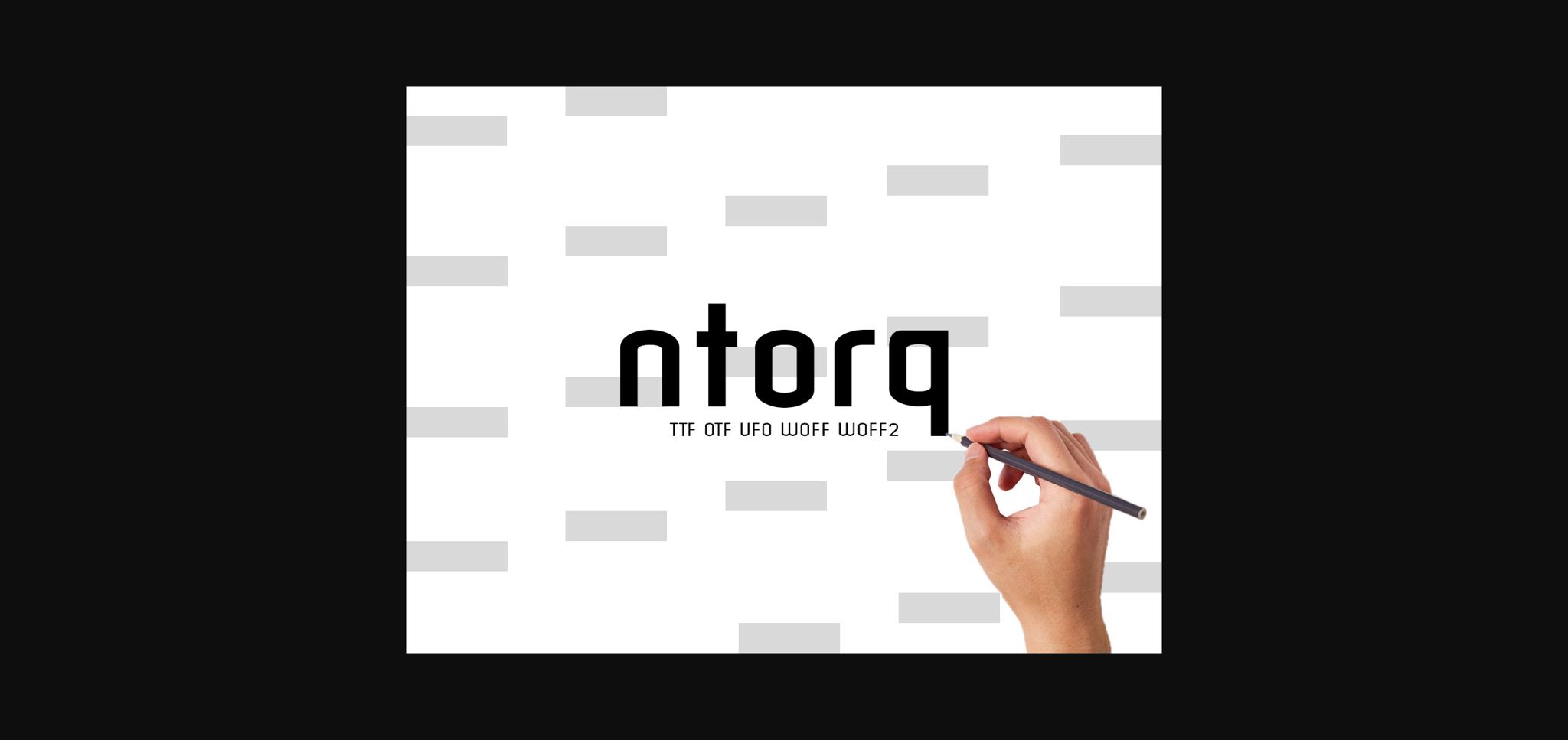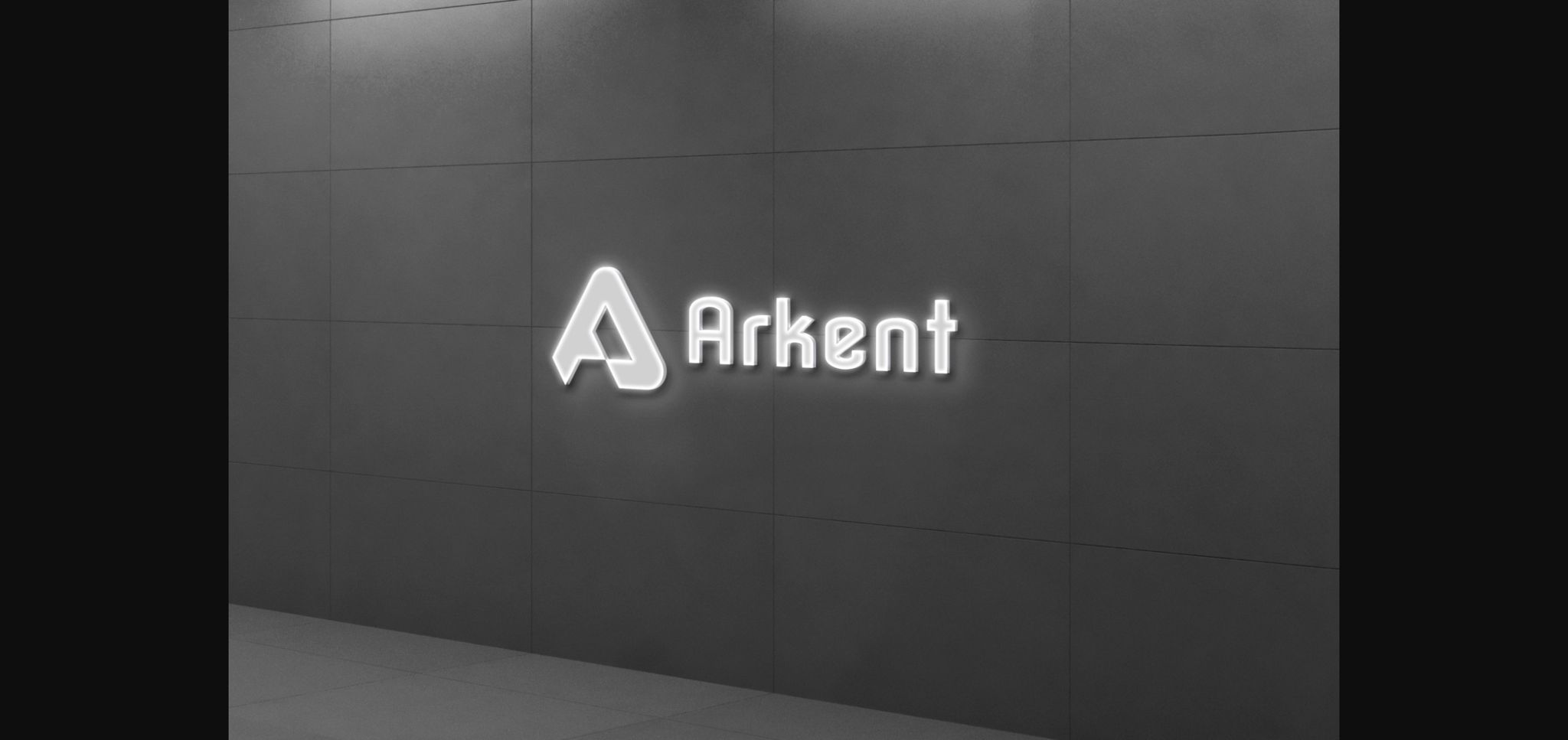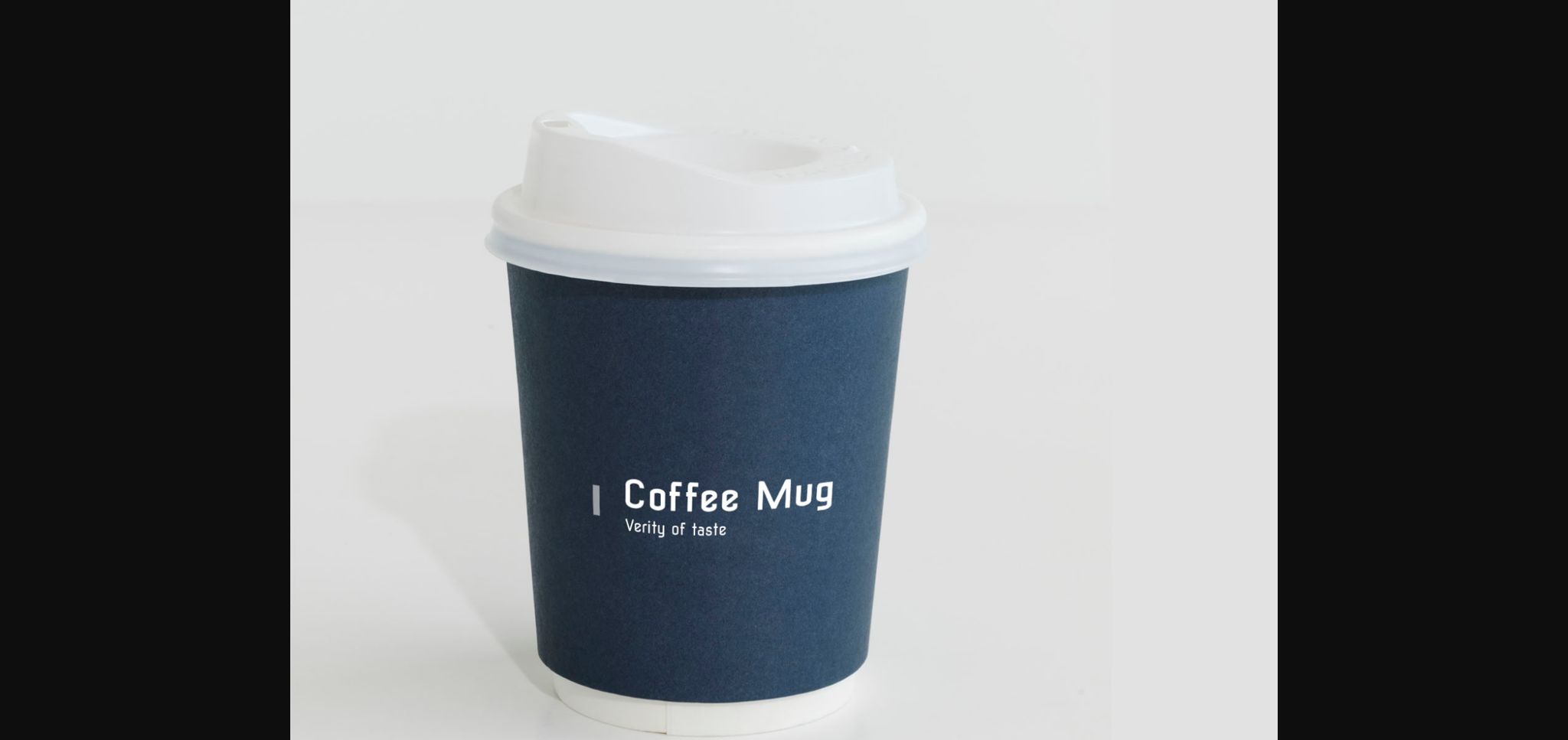
About Ntorq Font
Ntorq is a minimal and neat sans serif font. It can easily be matched to an incredibly large set of projects, so add it to your creative ideas and notice how it makes them stand out!